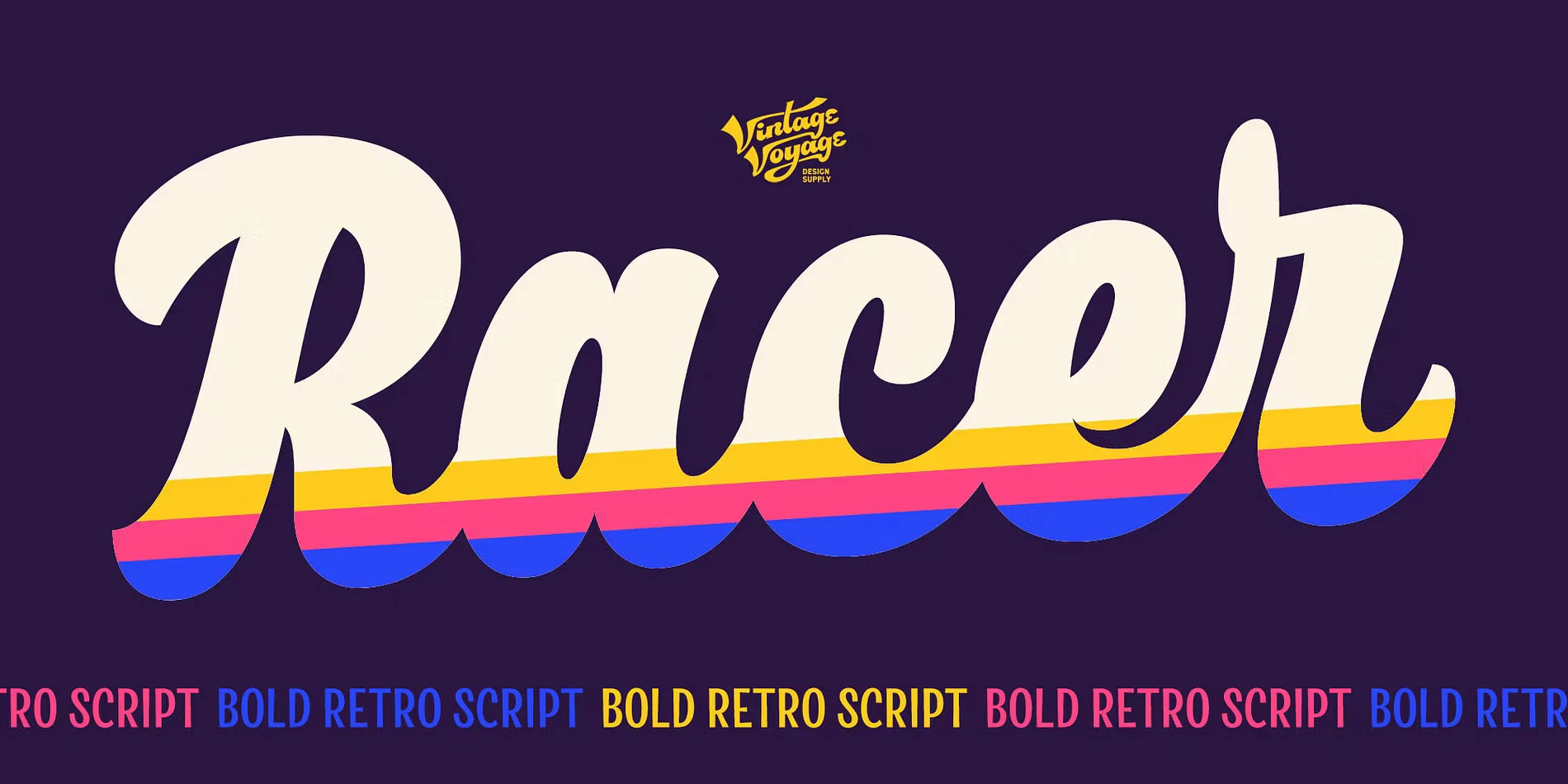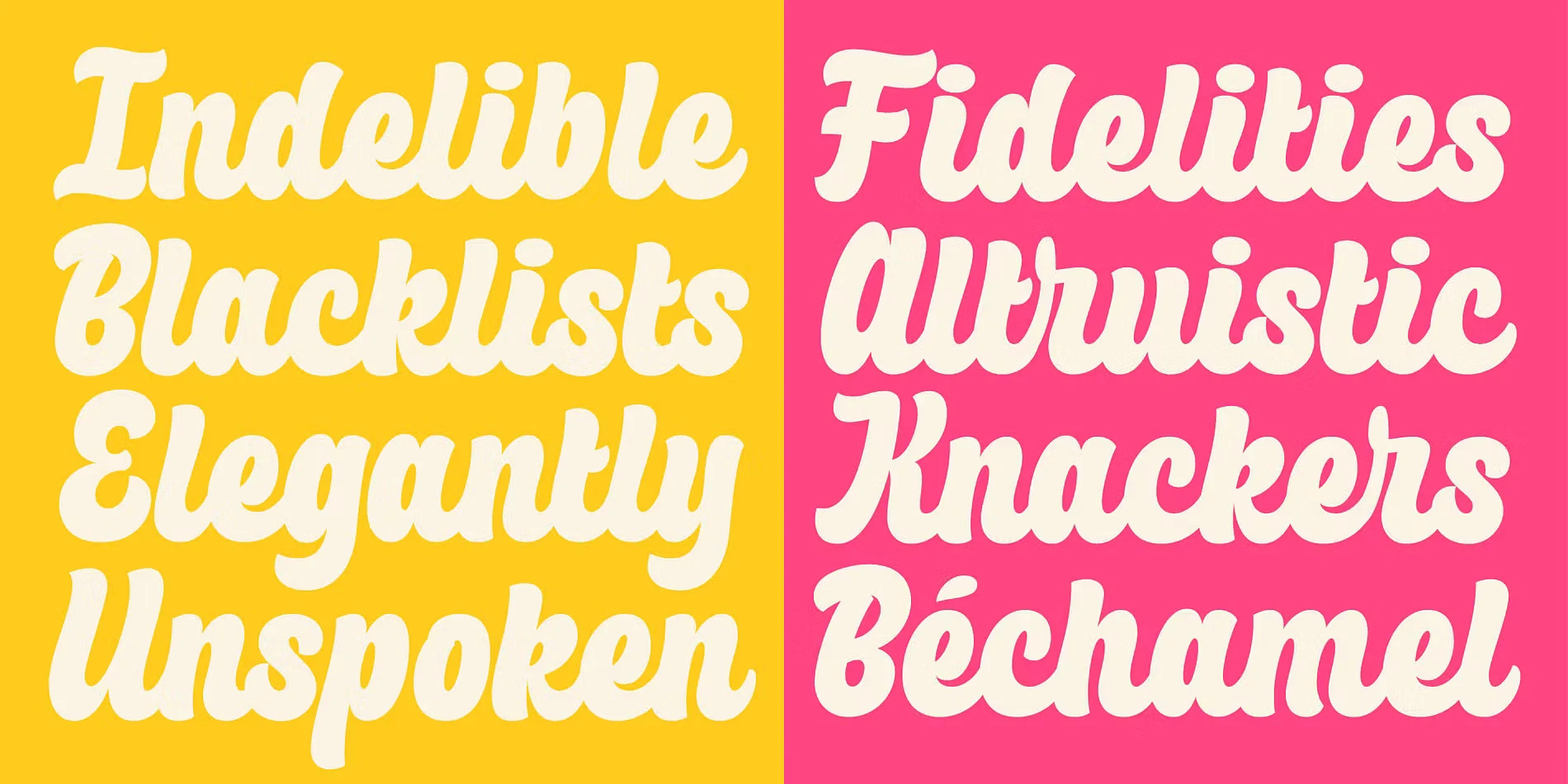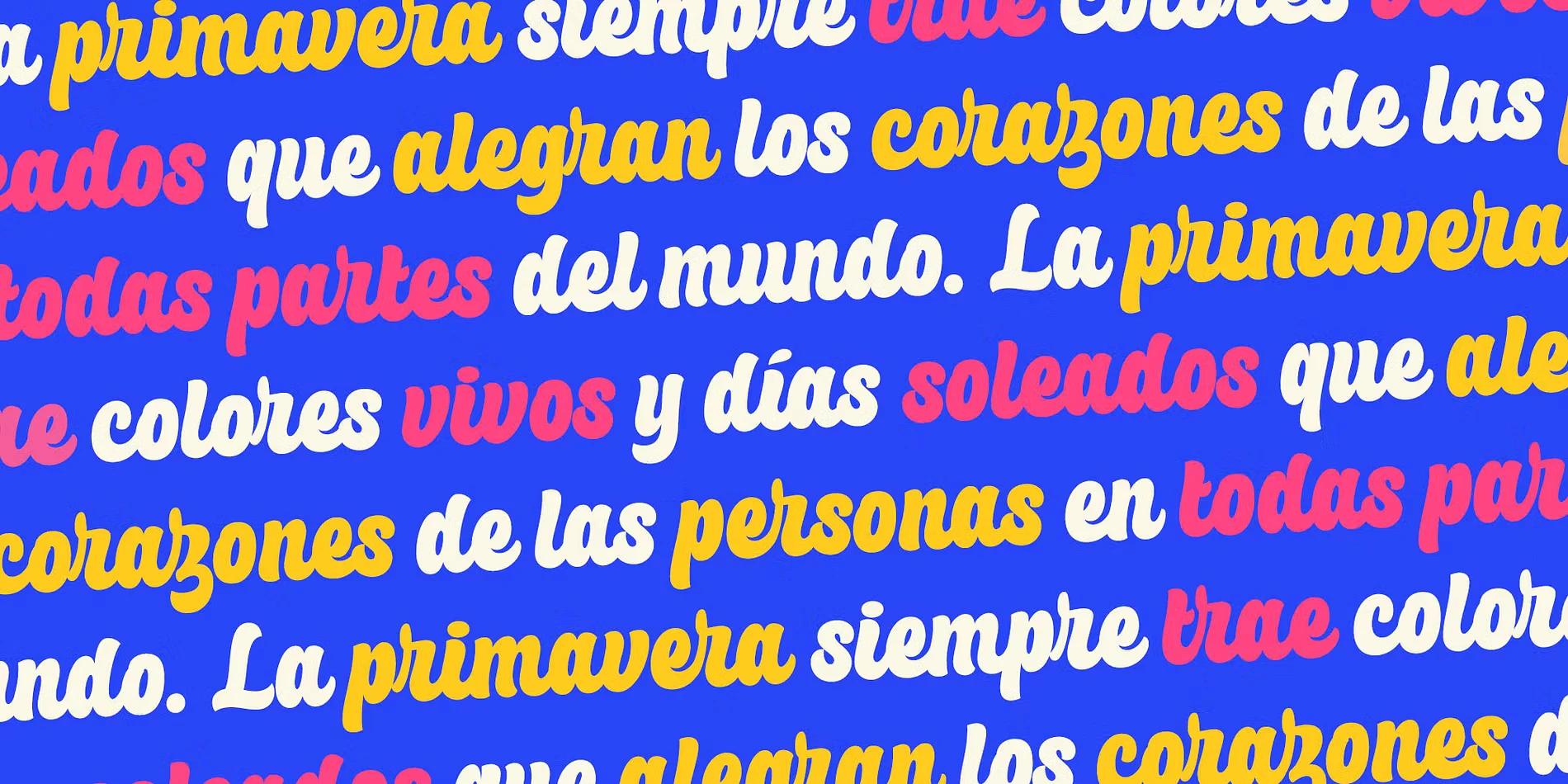
Racer Font
Racer is a bold, brush-lettered script with a vintage feel. The smooth curves and dynamic strokes give it a hand-crafted look for making perfectly eye-catching headlines and other display uses. With its lively, juicy shapes and friendly personality, Racer works exceptionally well for food and beverage branding, labels, posters, logos, signage, advertising, and other retro-inspired designs. Give your next project a touch of nostalgia with Racer — a vibrant and flavor-filled script!
• Ordinal Numerals
• Stylistic Alternates
• Subscript
• Superscript